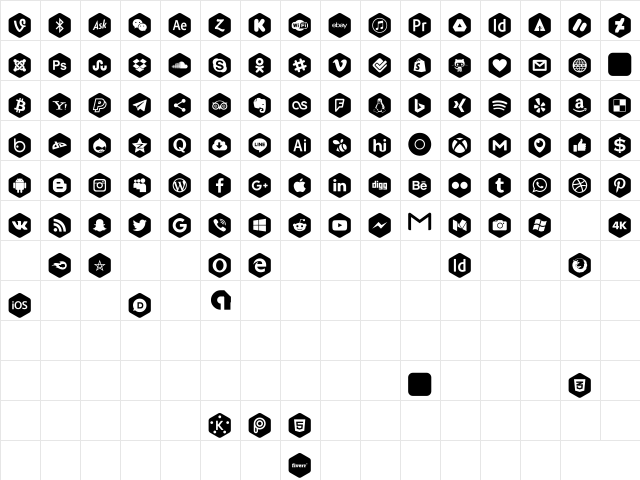
Social Color Pro Regular
Design Context for Social Color Pro Typeface
Social Color Pro takes a measured approach to typography — its balanced proportions and neutral character make it a reliable workhorse for both digital and print work.
Pro Tip: Pair Social Color Pro with a font of contrasting weight or personality to build a more expressive typographic hierarchy.